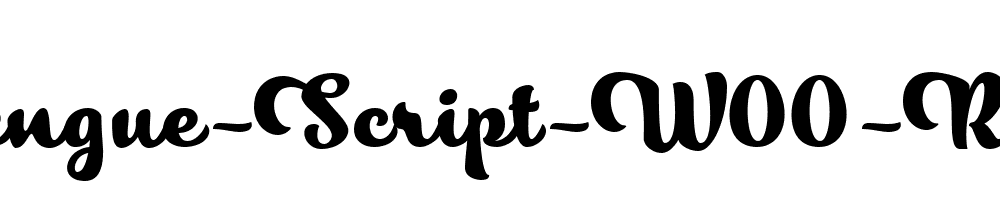
Merengue-Script-W00-Regular
About Merengue-Script-W00-Regular
The Merengue Script W00 Regular font, designed by an unknown creator, is a beautiful and versatile typeface that exudes elegance and sophistication. With its flowing curves and delicate details, this font is sure to make a statement in any design project. The apertures are generously open, giving the characters a sense of lightness and airiness. The ascenders and descenders are gracefully elongated, adding a touch of drama to each letter. The elegant apexes and finials contribute to the overall sense of refinement and sophistication. The bilateral serifs are a nod to traditional typography, while the subtle brackets add a modern twist. The closed counters create a sense of solidity and balance, while the graceful curves and loops give the font a sense of movement and energy. The stems are strong and sturdy, providing a solid foundation for the delicate details of the characters. The stress is perfectly balanced, giving the font a sense of dynamism and rhythm. The terminals are sharp and precise, adding a touch of sophistication to each character. With its classic yet progressive design, the Merengue Script W00 Regular font is perfect for a wide range of design projects. It strikes the perfect balance between neutral and expressive, elegant and rugged, serious and friendly, making it a versatile choice for any designer looking to make a statement. The font exudes a warm and inviting feel, making it a perfect choice for a wide range of design projects.